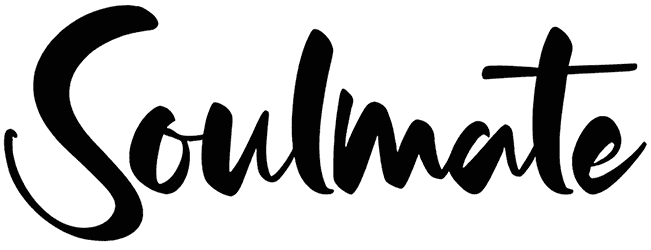
Soulmate Font
It is vividly clear that even at first glance, when the audience takes a look at your graphic content, like posters, flyers, brochures, book covers, and product packaging that are designed with the help of Soulmate, they will immediately fall in love with your artwork.
So it would be better to at least try this script font for once and see how it levels up your work by adding a sense of personalization, coolness, playfulness, or dynamism.